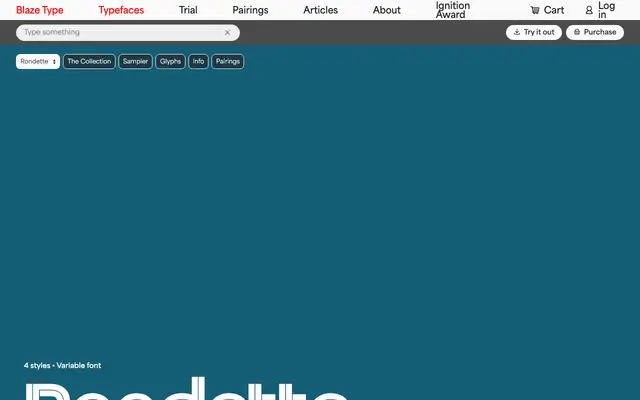
Rondette
Blaze Type · Fabrizio Falcone, Alex Bossi · 2024
Rondette specimen from Blaze Type
A geometric display sans in four weights, drawing on 1970s Unimark sports branding, Churchward Design 70 and Herbert Bayer's Universal alphabet for an athletic, cut-form aesthetic.
Designed by Fabrizio Falcone and Alex Bossi and released in 2024, Rondette combines the circular geometry of Futura and Kabel with sharp diagonal cuts on S, C and G, and rounded strokes on A, E and F. Stylistic alternates include variant legs on R and K, alternate bowl forms on b, d, p and q, and both single- and double-storey g, giving considerable compositional variety. Available as a variable font across four static weights, it suits sports branding, editorial display and identity work where geometric rigour meets expressive detail.
A display-weight geometric sans with sharp diagonal cuts and rounded terminals, drawing on Futura, Kabel and Herbert Bayer's Universal alphabet; the athletic, structured geometry and stylistic alternates place it firmly in the display category.